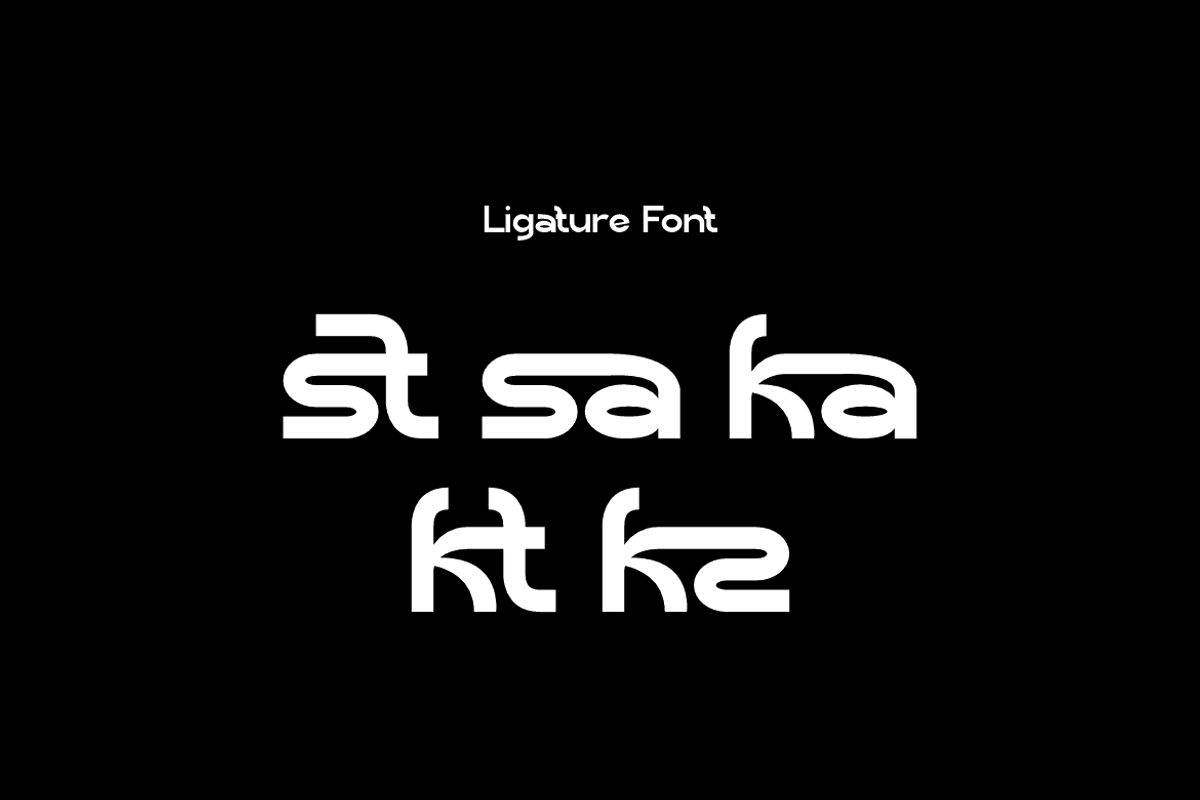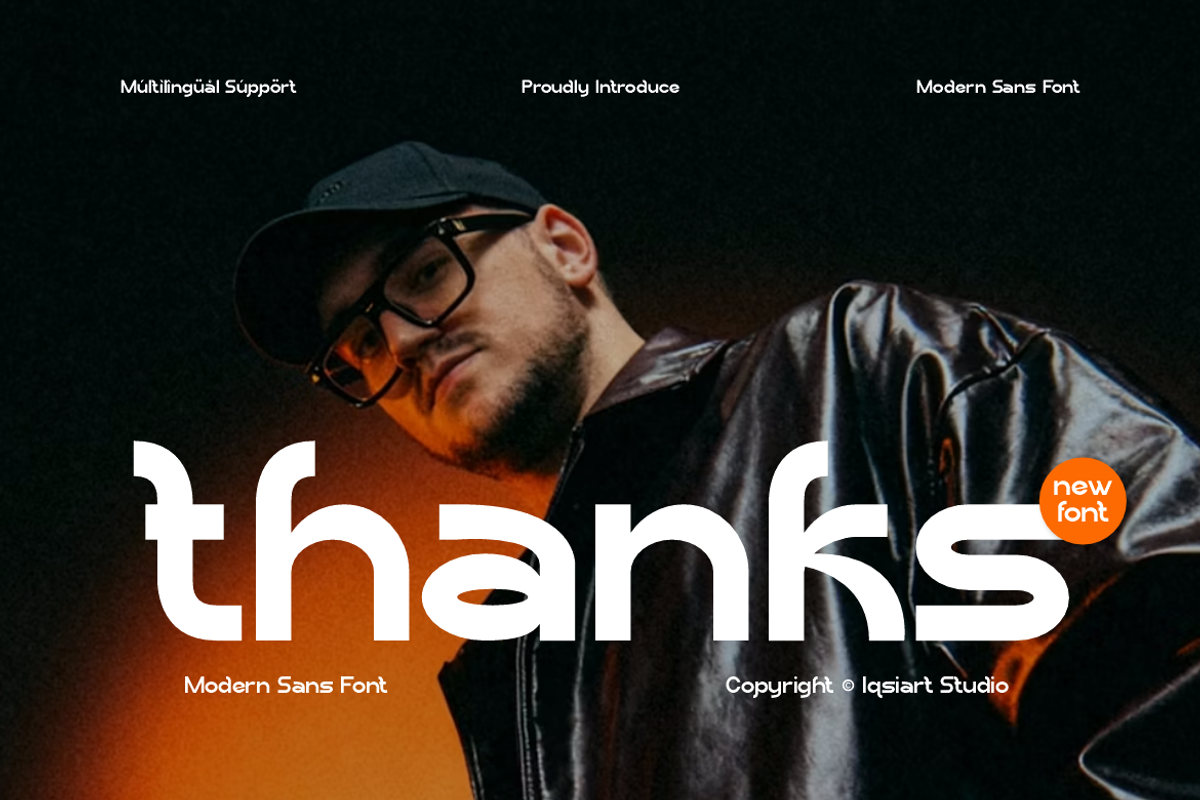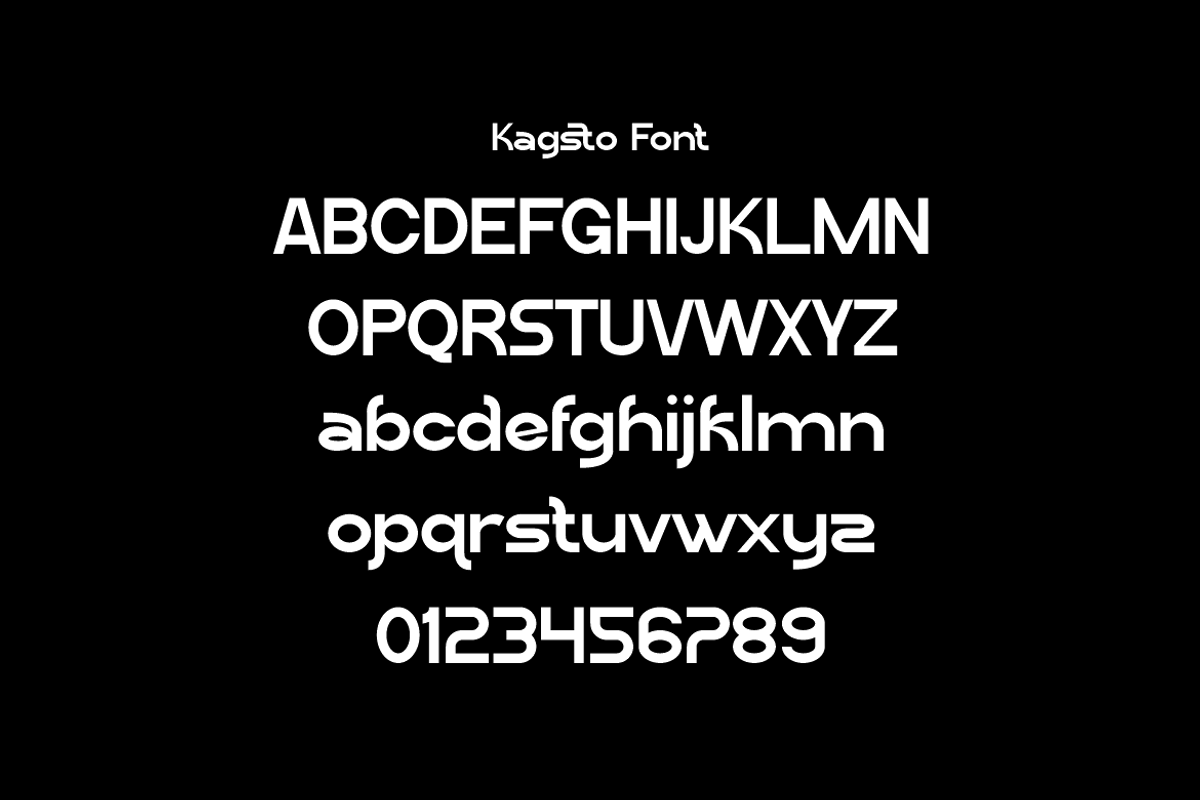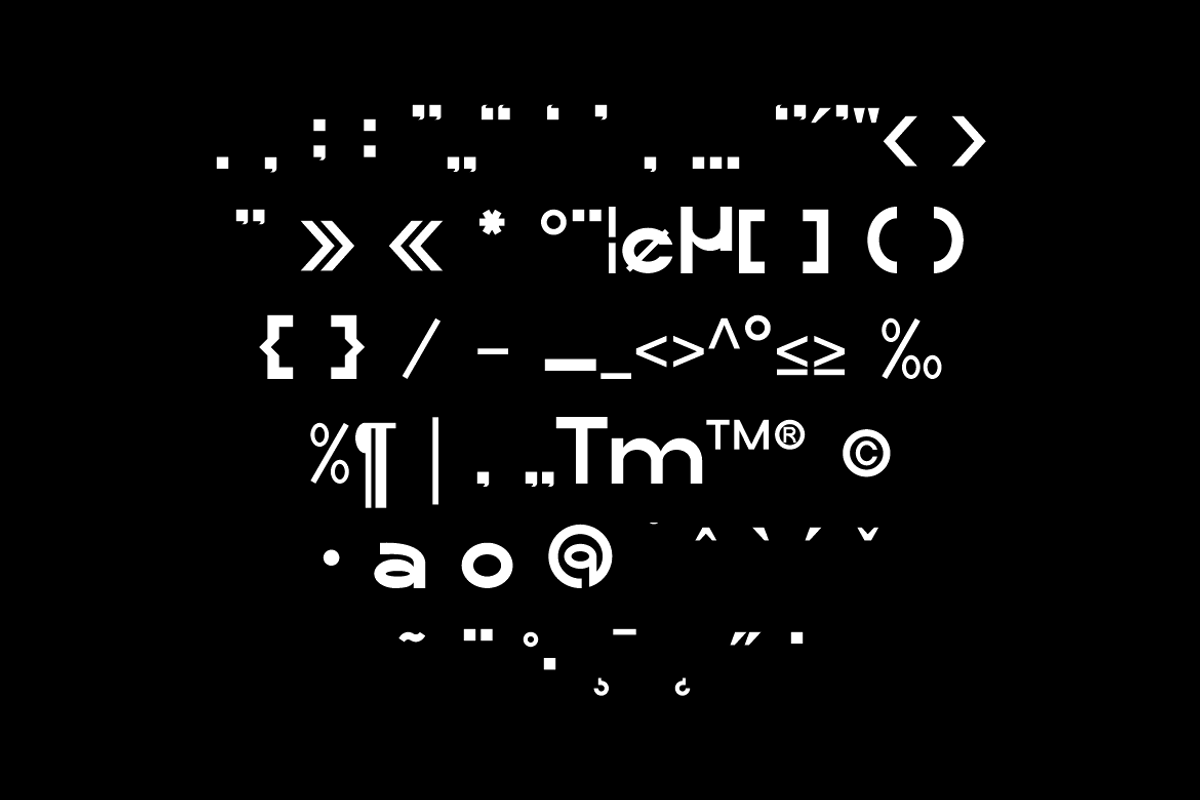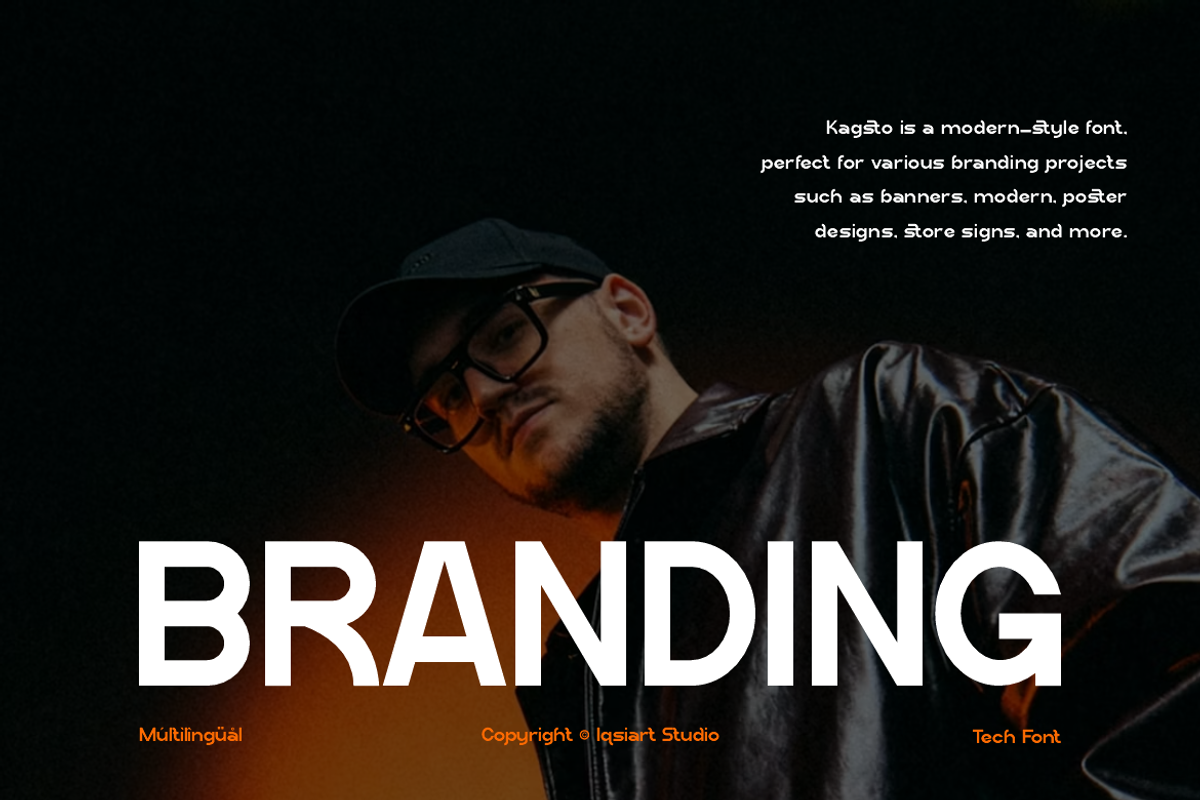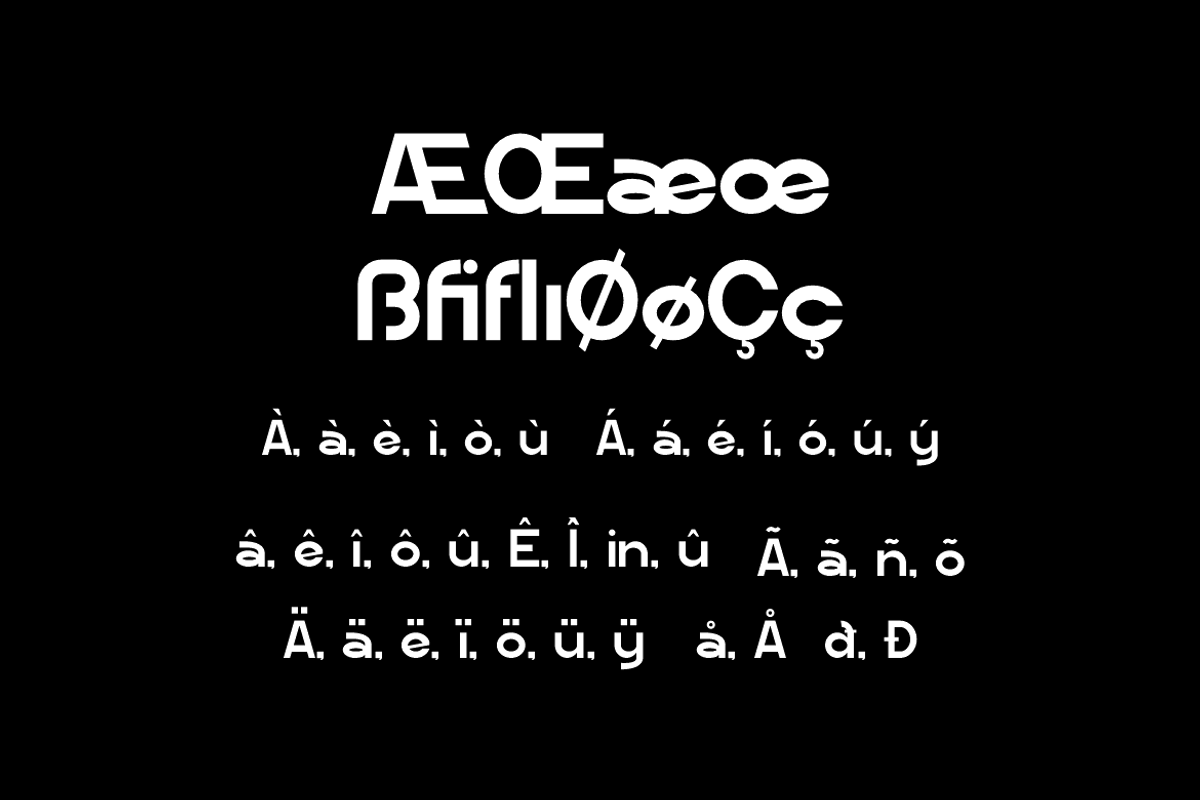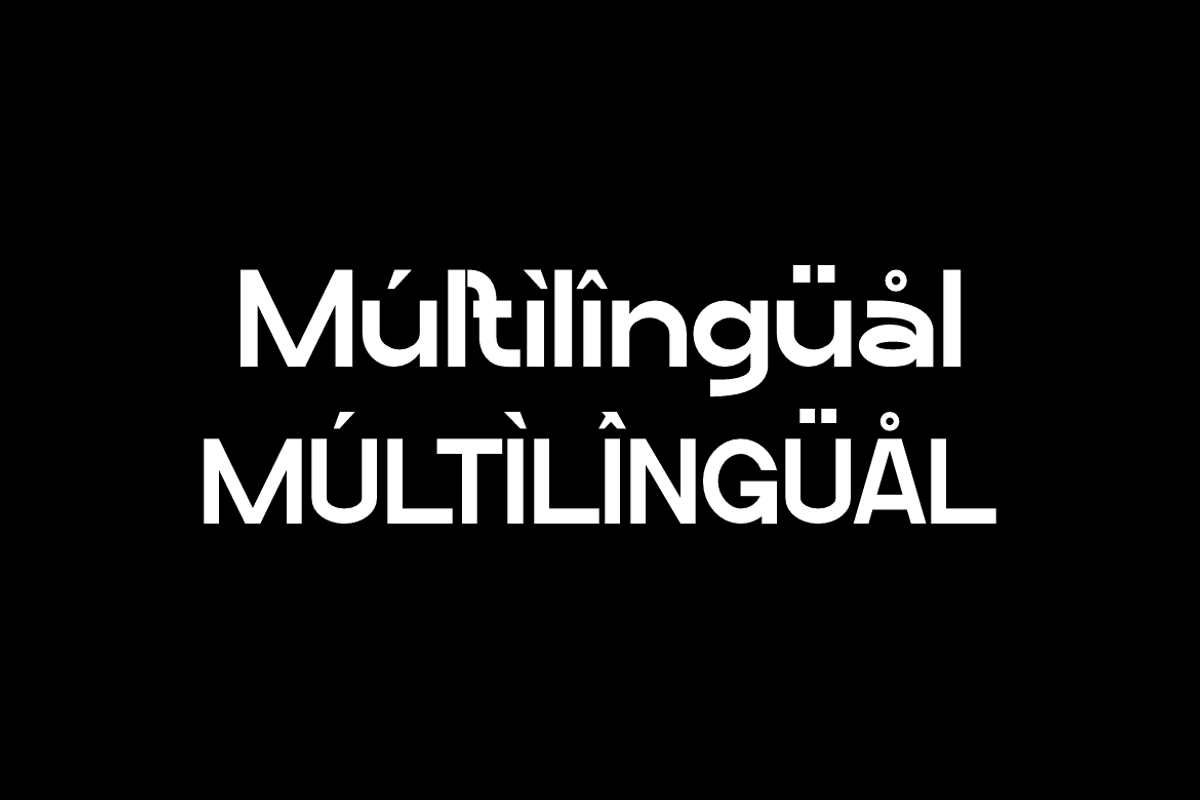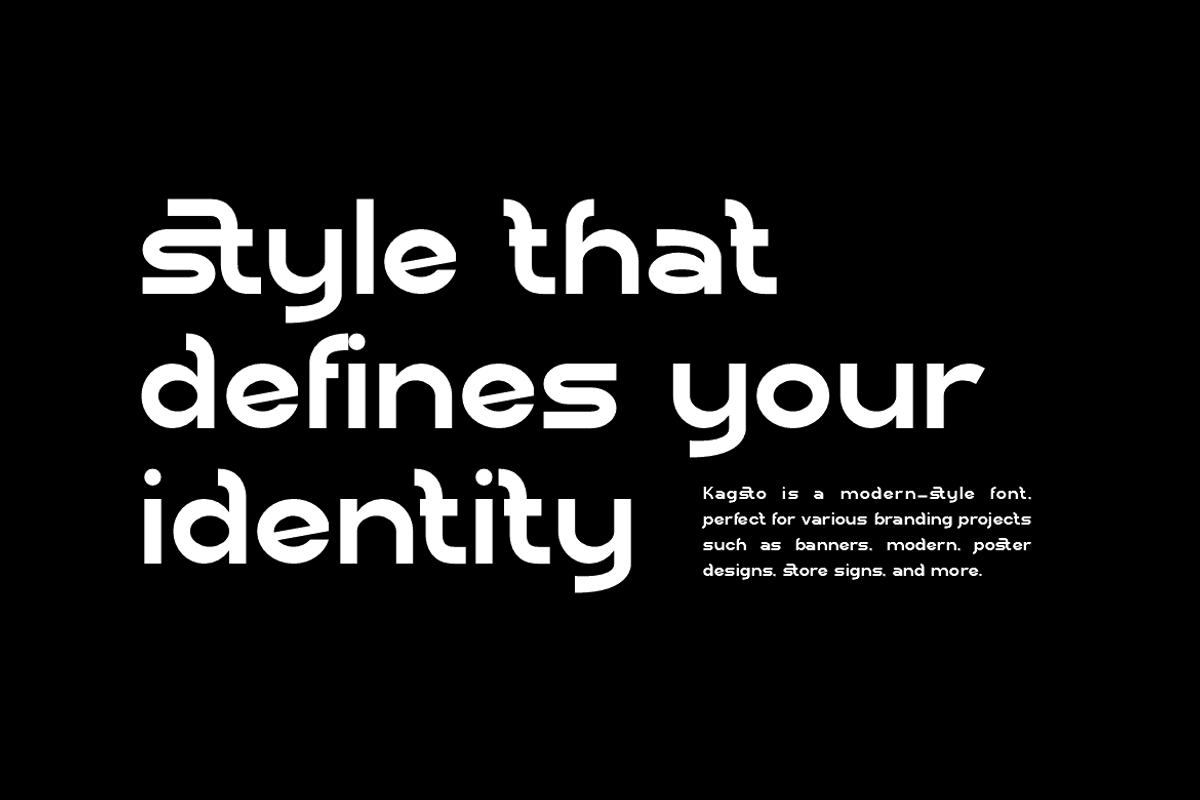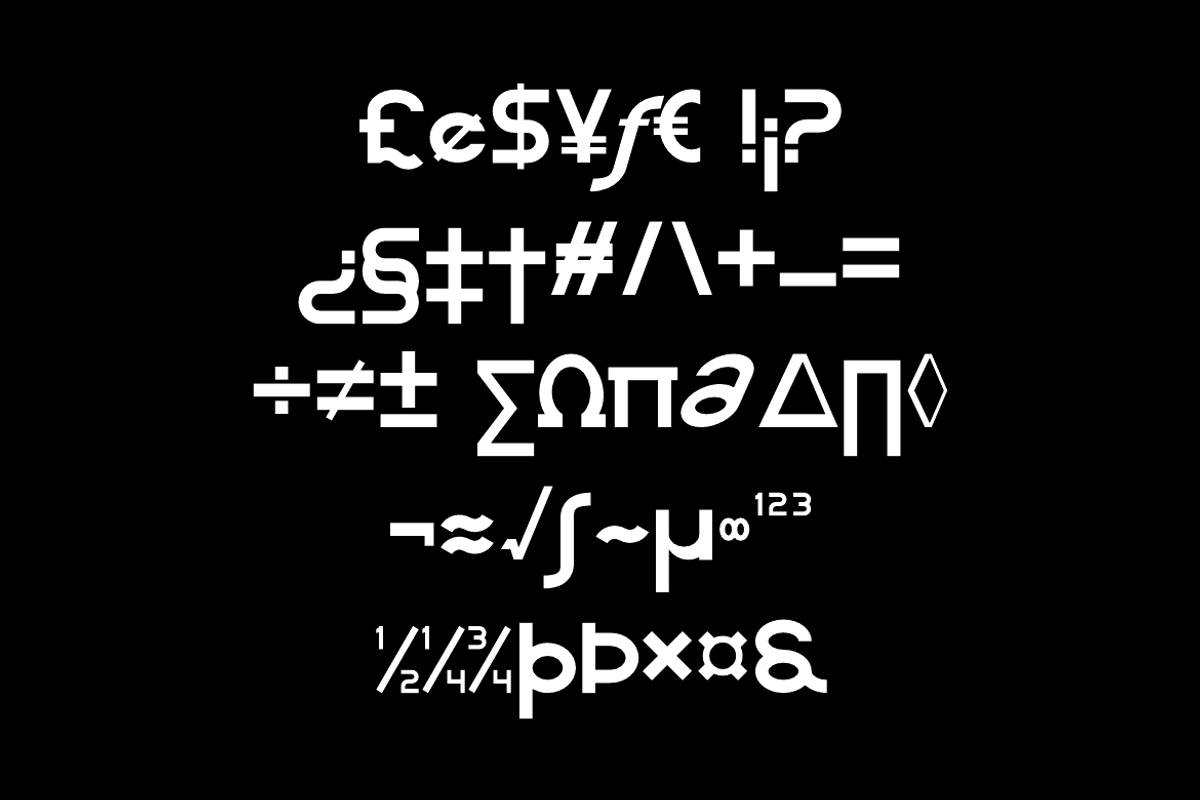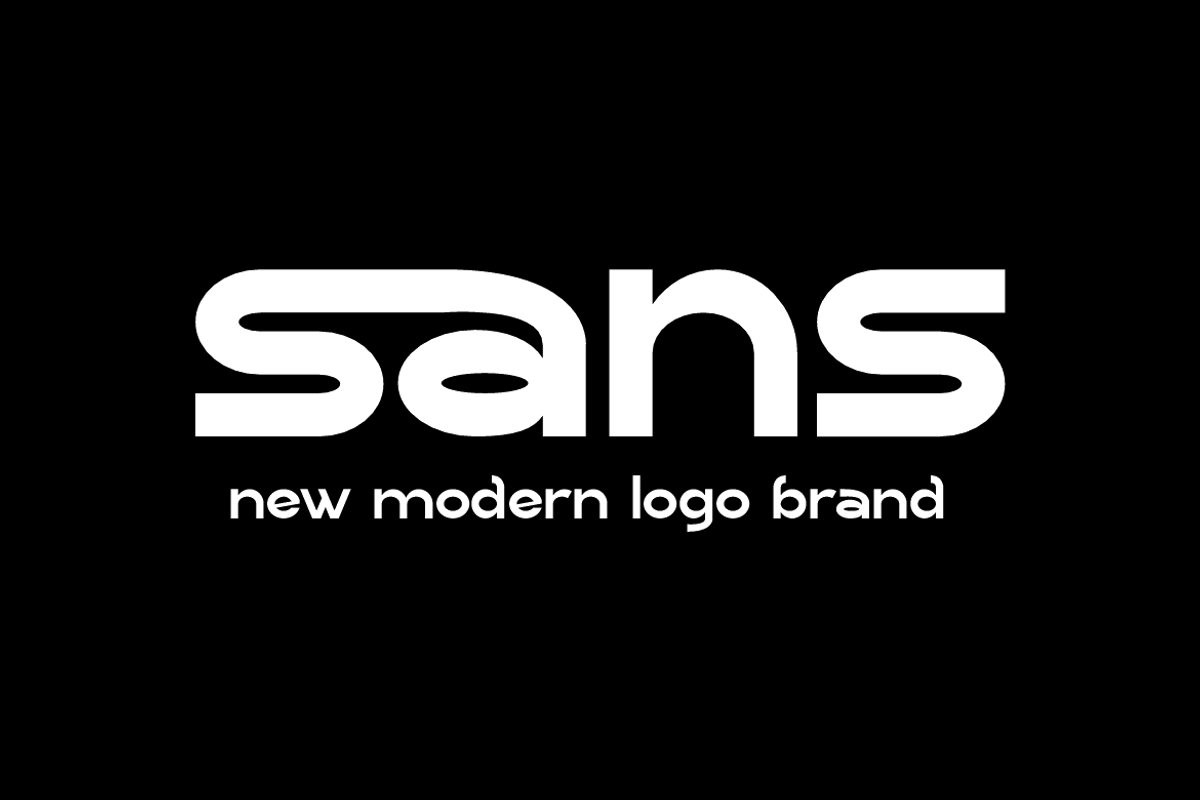
Kagsto - Modern Sans Font
Kagsto Font is a sans serif and authentic display typeface
that suits a variety of design needs. We offer a wide range of themes